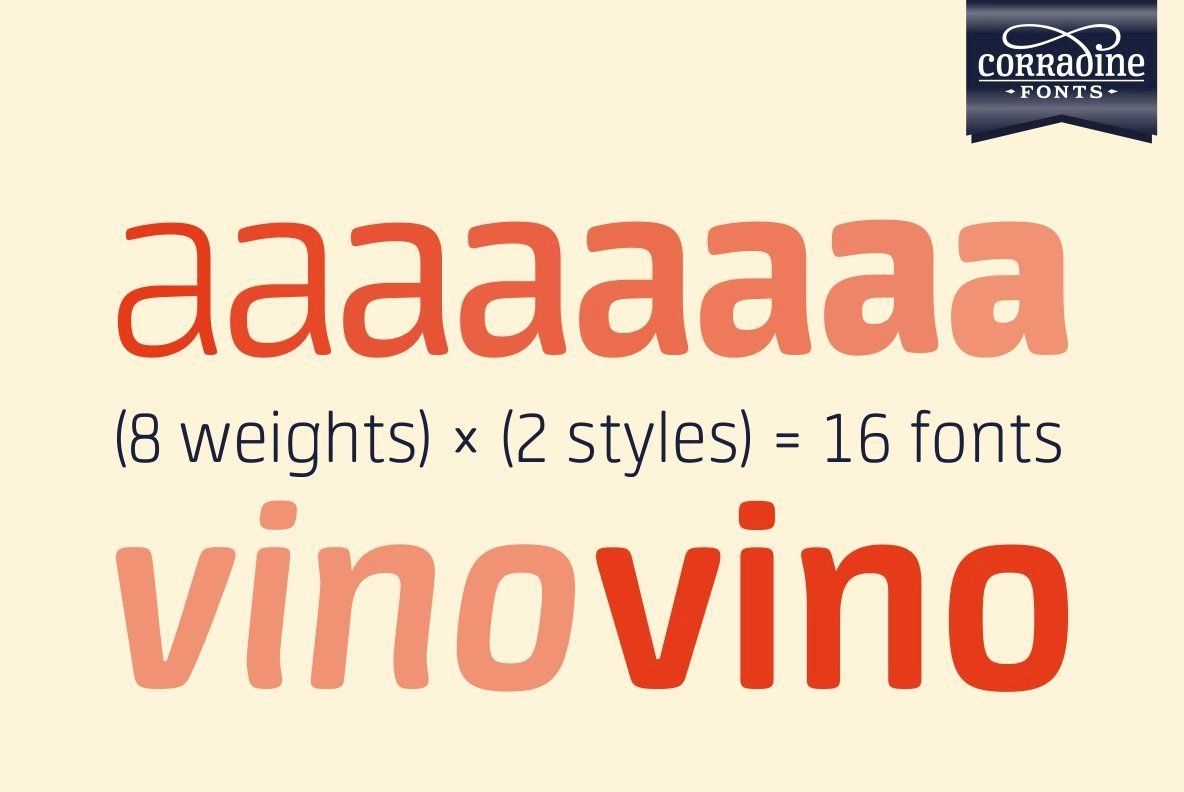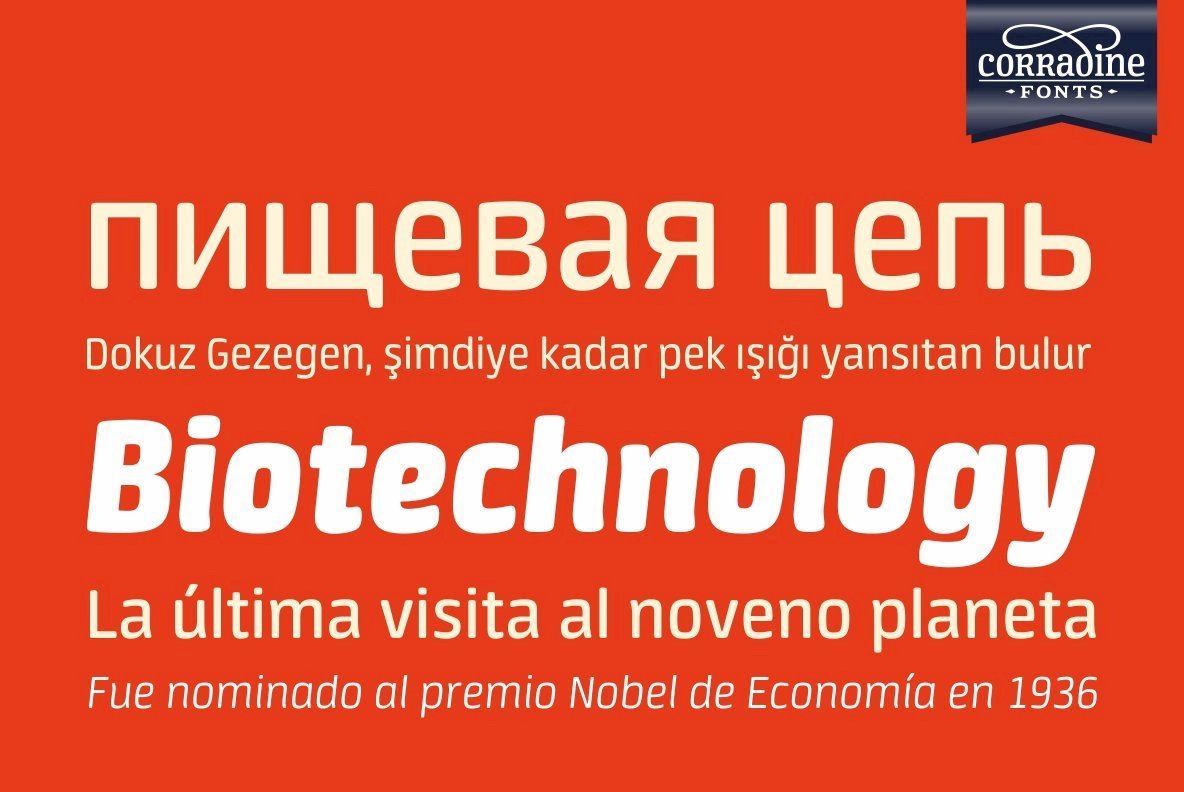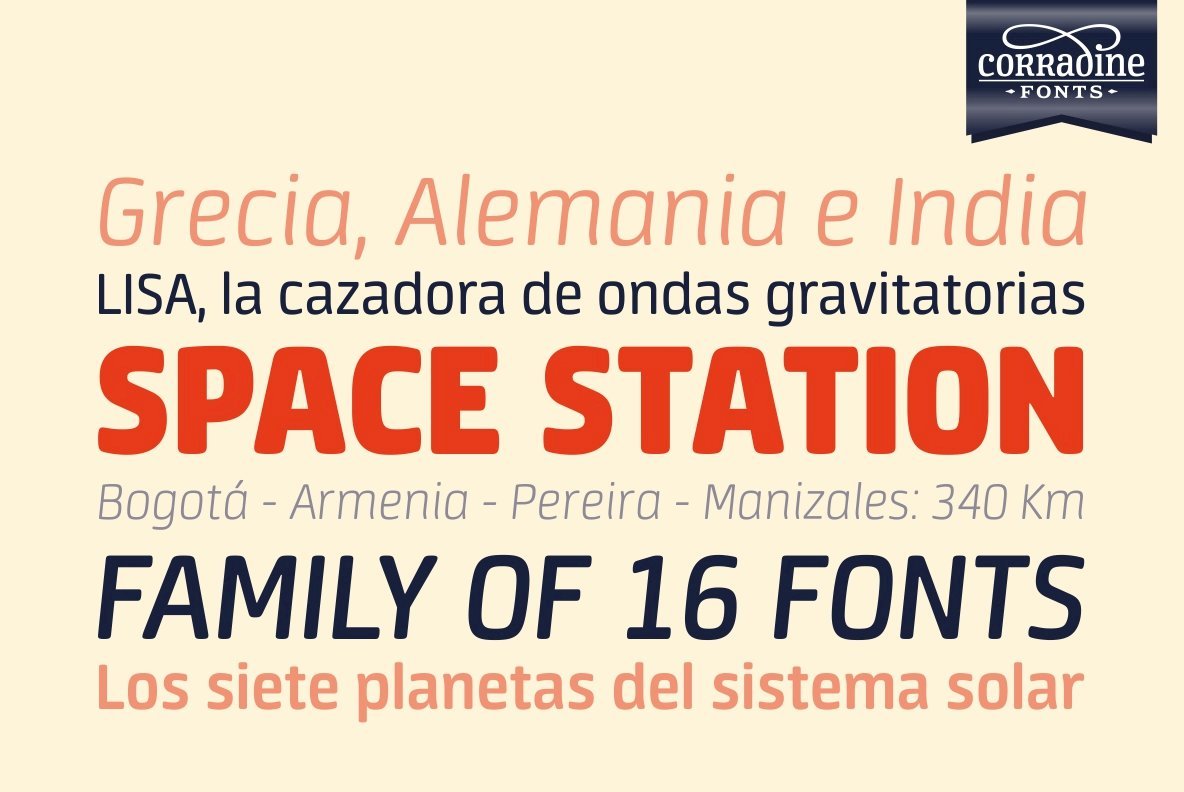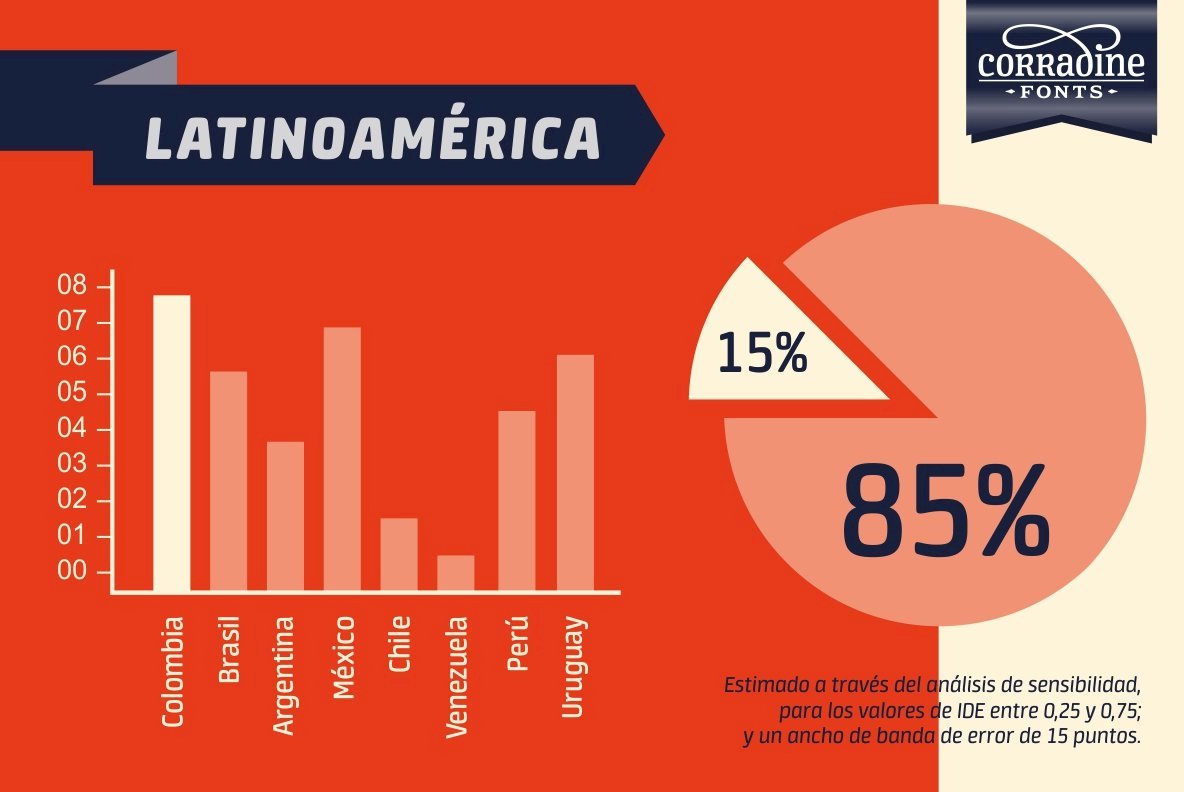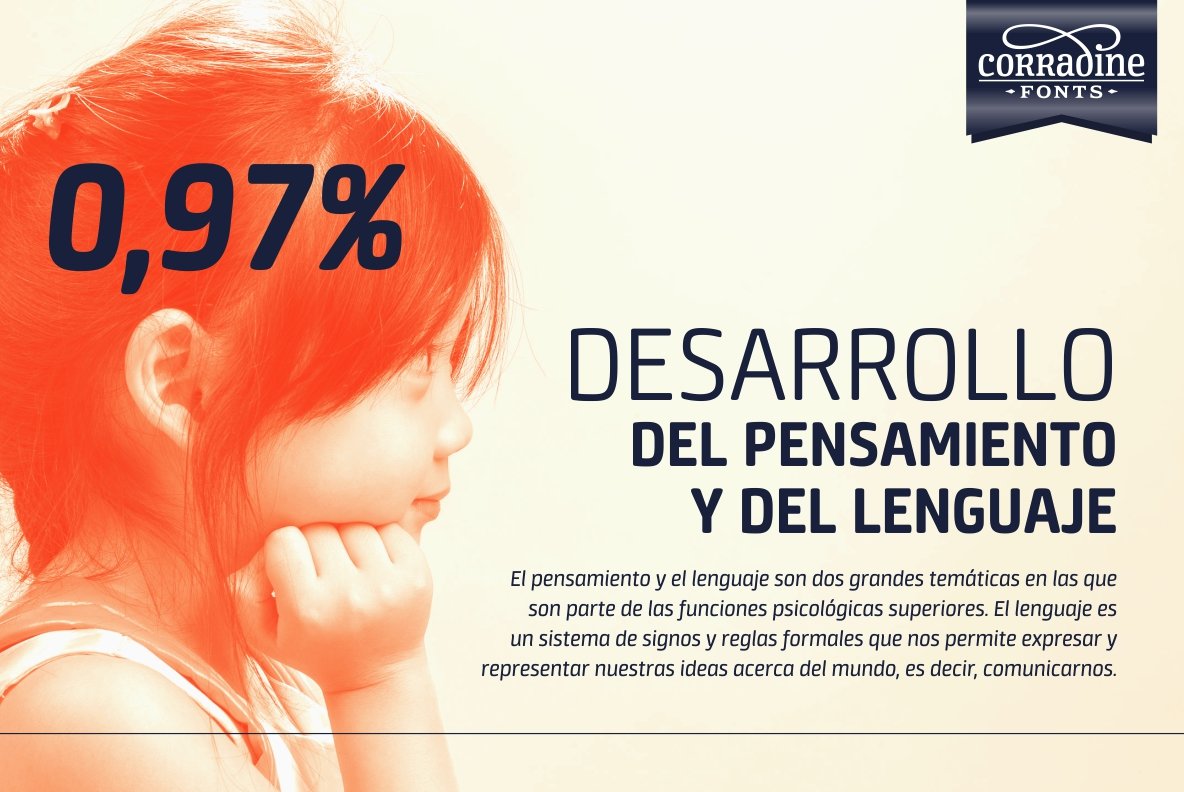
Neuron Font
Neuron puts a chemist’s twist on standard block-style print to create a fresher version of the elemental alphabet. Widely spaced letters and a slightly tall x-height have a clean effect for great readability.
Squarish shapes are stylized to retain curved tails, achieving a neutral appearance that makes it very versatile. A thick width in ExtraBold, Black and Heavy give stand-out strength for headlines and branding, without affecting legibility. This modern sans-serif family includes 16 variants, and covers Latin, Central European and Cyrillic characters.